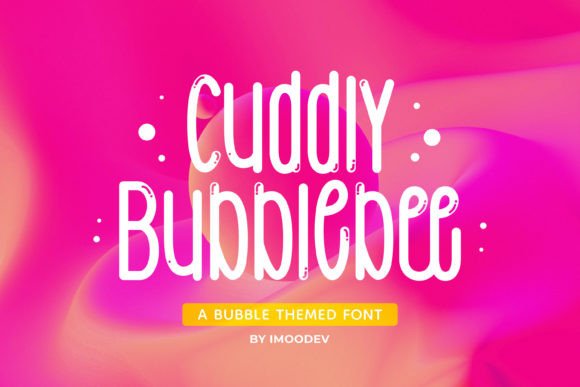
Introducing the Cudly Bubblebee Font, a sans serif gem created by Imoodev. This font is not just your ordinary typeface; it's a font that exudes charm and elegance in every lettering, allowing your work to shine with stunning attractiveness.
With its smooth curves and unique visual style, Cudly Bubblebee is a bubble font that captures attention effortlessly. Whether you're designing for streetwear or any other project, this font is the perfect choice to elevate your work to new heights.
One of the remarkable features of Cudly Bubblebee is its versatility. It can seamlessly adapt to both uppercase and lowercase sizes, making it suitable for a wide range of projects. Whether you need a captivating display font for headings, a standout logo font, or a font that adds a touch of elegance to your invitations, branding, magazine, or product packaging, Cudly Bubblebee has got you covered.
But that's not all – Cudly Bubblebee goes beyond expectations. This font is PUA encoded, which means you can effortlessly access all of its amazing glyphs and ligatures. Discover a world of creativity and possibilities as you explore the vast array of unique characters and combinations that Cudly Bubblebee offers.
Imagine the impact this font can have on your designs. It's not just a font; it's a work of art that adds a touch of sophistication to any project. Let your creativity soar as you incorporate Cudly Bubblebee into your next project – be it a captivating poster, eye-catching labels, an editorial masterpiece, or an art deco-inspired creation.
Moreover, if you're in the film or video industry or looking for the perfect font for advertising purposes, Cudly Bubblebee is your go-to choice. Its captivating style will leave a lasting impression on your audience, making your message stand out from the crowd.